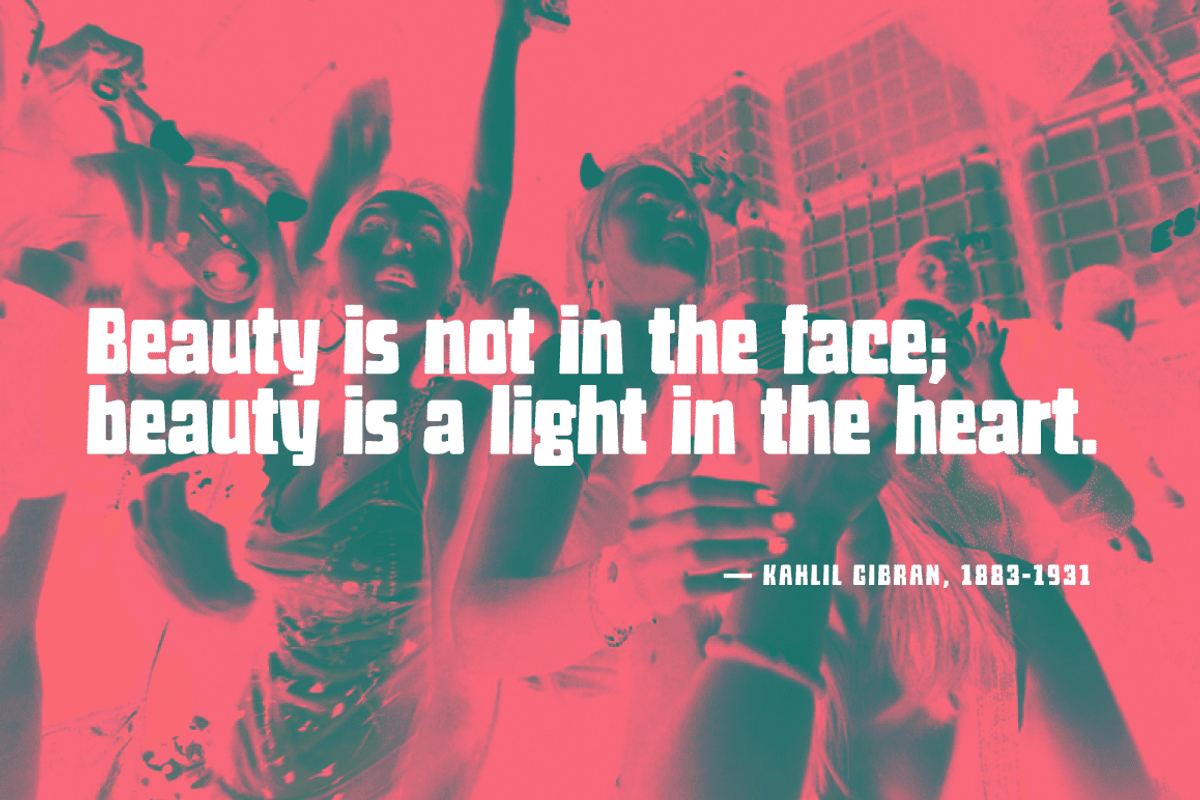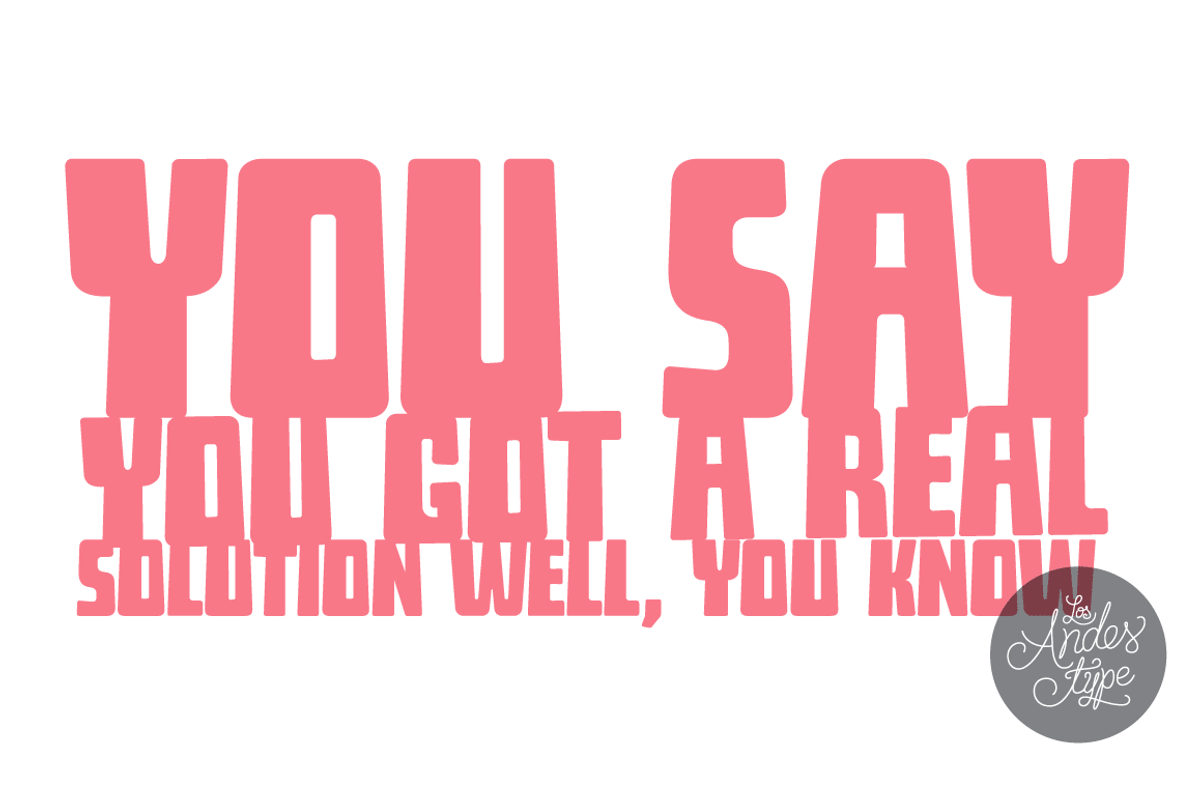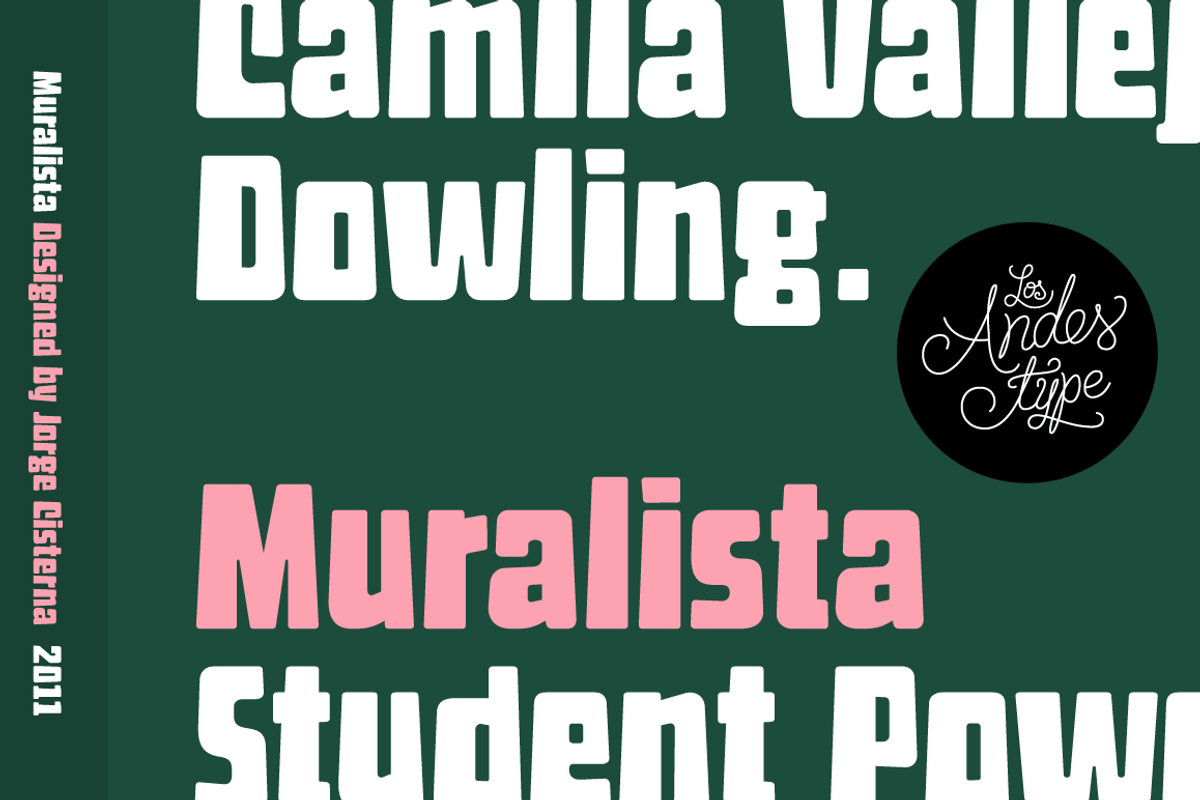
Muralista
This typeface is inspired by 60s and 70s Chilean murals and posters artwork. On the walls, big and heavy letterforms were presented pictorially for political propaganda. Muralista is a low contrast condensed typeface, similar to classic forms of the early nineteenth century humanist grotesque. The sinuous, rounded and asymmetric terminations remind us the artist’s brush strokes. This typeface is ideal for editorial sentences and logo designs. Designed by Jorge Cisterna.